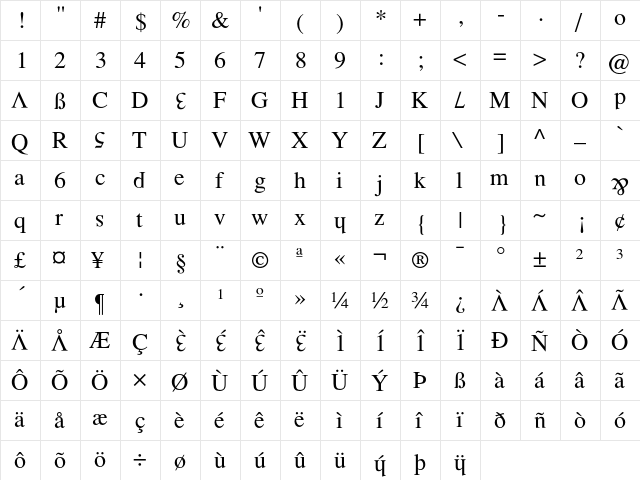
Wrongfont Regular
Design Context for Wrongfont Typeface
Wrongfont offers clean, dependable letterforms without strong stylistic allegiance, making it a practical choice for designers who need flexibility.
Pro Tip: Pair Wrongfont with a font of contrasting weight or personality to build a more expressive typographic hierarchy.